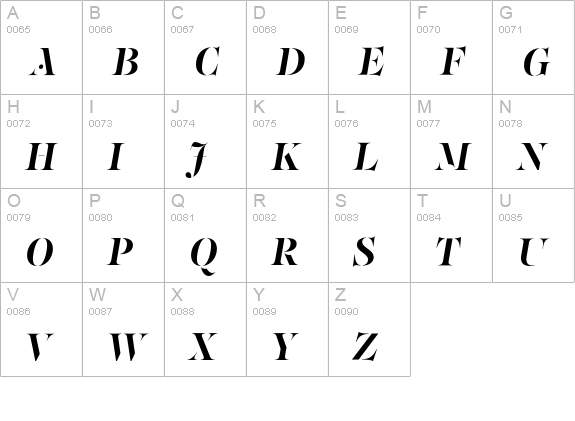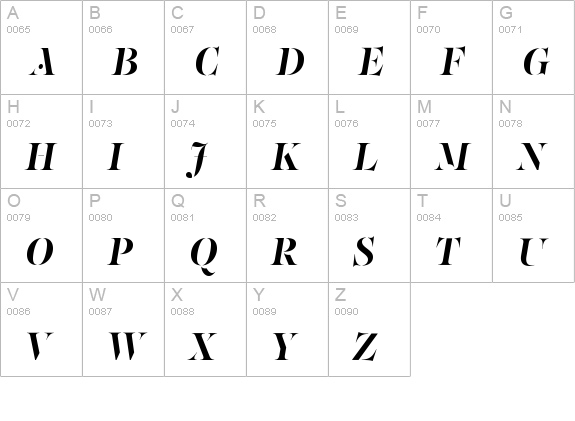
PFRegalStencilPro-BoldItalic is a striking and elegant font that exudes sophistication and power. Its bold and italic design creates a sense of modernity and style, making it the perfect choice for projects that demand attention and authority. This font is ideal for headings, titles, and branding materials where a bold statement is needed. The PFRegalStencilPro-BoldItalic font is available for free download at FontsMarket.com, allowing you to easily access this high-quality typeface for your creative endeavors. Whether you're designing a poster, logo, or website, this font will add a touch of class and professionalism to your work. Don't miss out on the opportunity to enhance your projects with this sleek and versatile font. Download PFRegalStencilPro-BoldItalic today and elevate your designs to the next level.